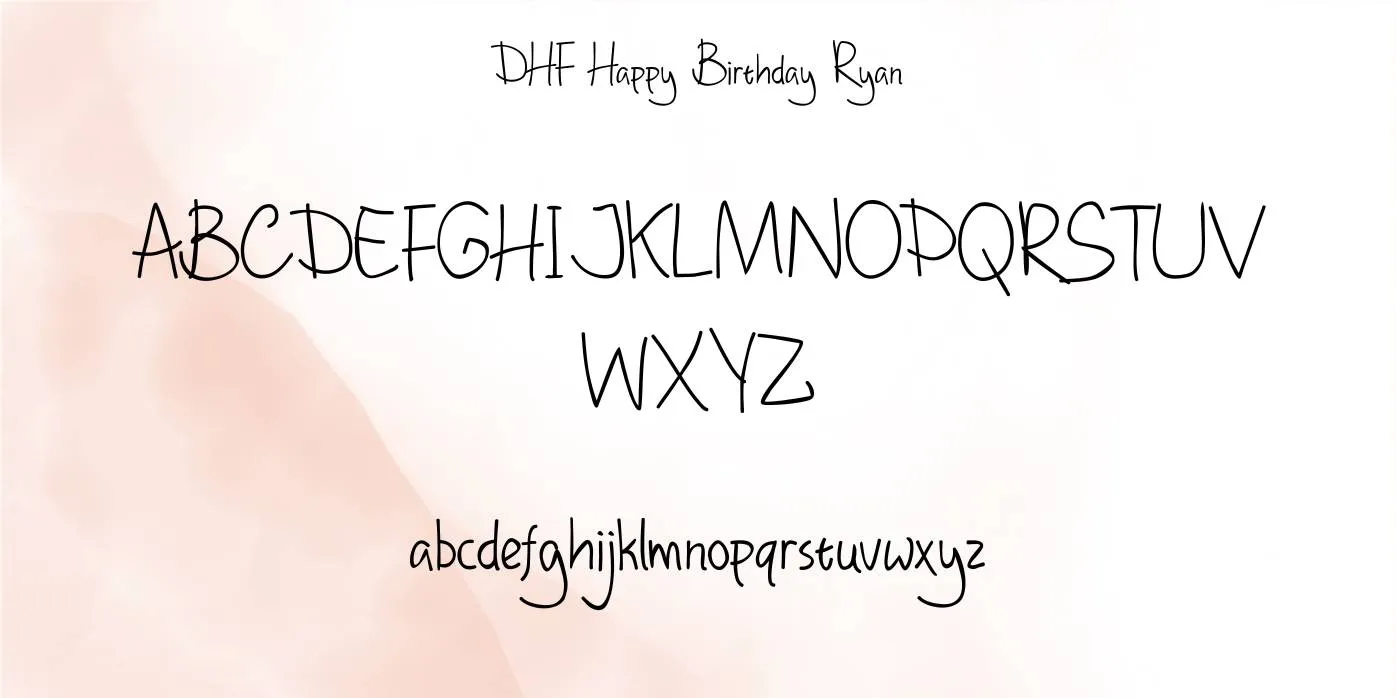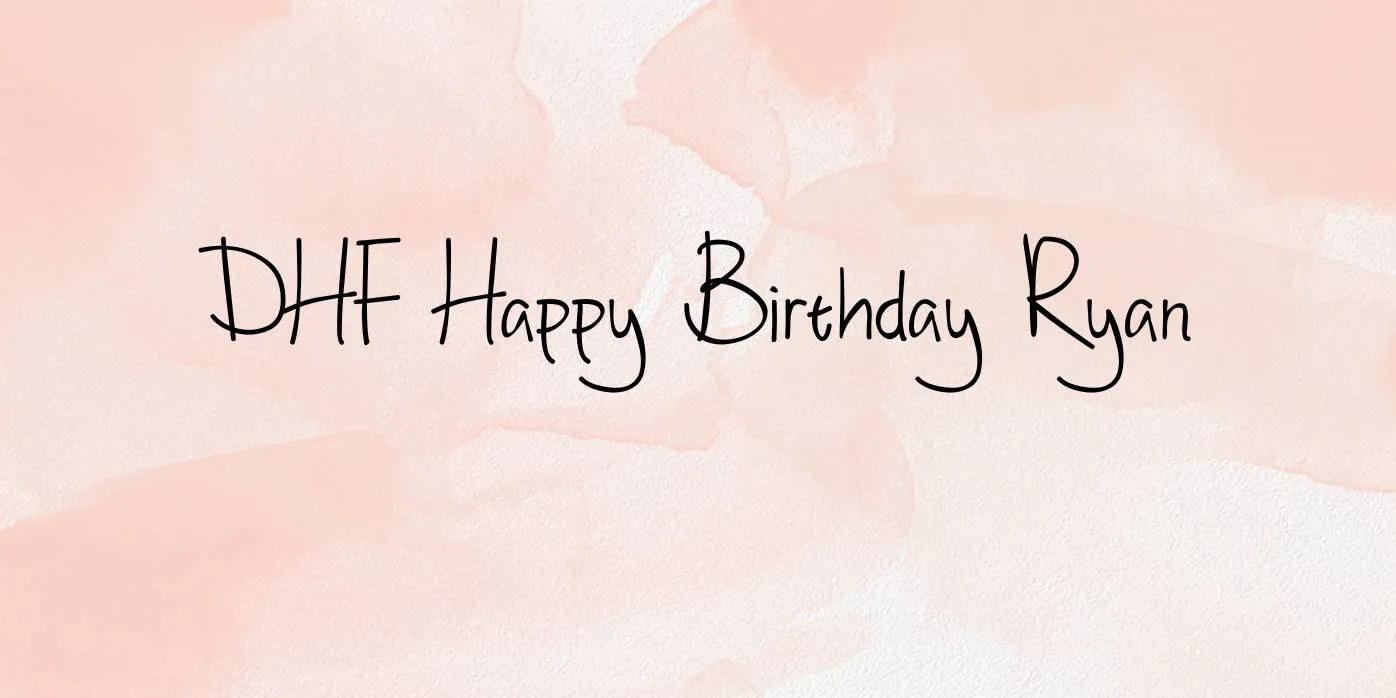
DHF Happy Birthday Ryan Font
The DHF Happy Birthday Ryan Font is a unique texture that belongs to the handwritten texture family. This elegant font was developed by a famous designer named Dexsar Harry Anugarh. It was published through Majestype. This stunning font is a very loveable typeface and specially designed to wish on Ryan’s Birthday.
It has three styles Regular, Bold, and Italic. So, you can make attractive designs by using this font. It contains 219 characters, 188 glyphs, and 1000 units per Em. It is a handwritten font and you can make so many different projects both personal and commercial by using this font.
Usage This font can be used to design many projects. You can use it for events related to happiness or birthdays. You can use this font for making birthday cards, birthday greetings, posters, and banners. For themed parties and all types of birthday decorations, you can utilize this font.
It can be used for making amazing website designs and graphic designs by using different types of graphic applications like Adobe Photoshop and Canva. You can also use it for making different projects in MS Word, PowerPoint, and Corel Draw. It has small letters, capital letters, punctuation, and special characters. So it is good for both print and digital media.
Who is the designer of DHF Happy Birthday Ryan Font? This typeface was designed by Dexsar Harry Anugarh and manufactured by Majestype. It is a very amazing handwritten font and it was launched in 2012. Where can I use DHF Happy Birthday Ryan Font?
This beautiful font can be used to design many projects you can use it for designing birthday cards, greeting cards, website designs, invitation cards, printing T-shirts, mugs, and much more.